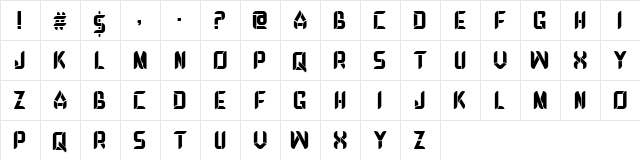
DEBROSEE Regular
| Foundry | CBRTEXT Studio |
| Designer | CBRTEXT Studio |
Design Context for DEBROSEE Typeface
DEBROSEE is a composed and adaptable typeface that performs quietly and consistently across a wide range of design contexts.